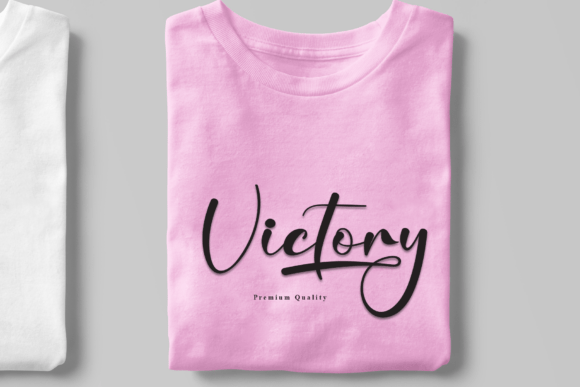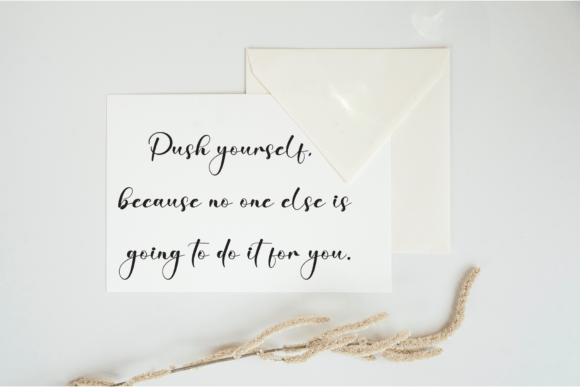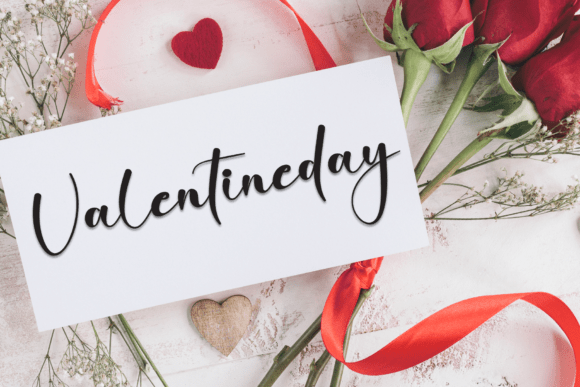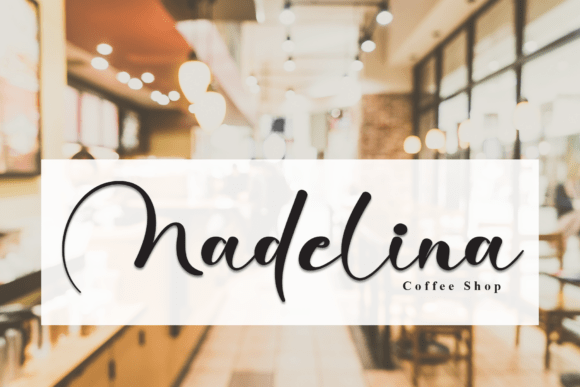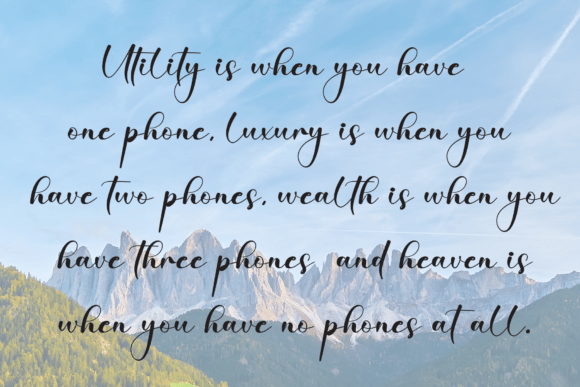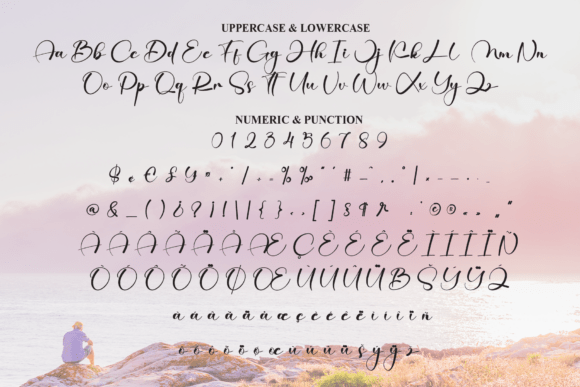
Find Your Inner Calm with the Perfect Font
Have you ever been stuck on a design project, struggling to find the perfect font that captures the essence of your brand or message? You’re not alone. We’ve all been there, pouring over font options, searching for that elusive combination of style and sophistication. It’s a feeling of frustration, until suddenly, it hits you – the perfect font. For designers seeking to add a touch of elegance and modern flair to their work, Calming Font is the answer.
This beautiful handwritten script font combines flowing strokes and organic curves to bring warmth and sophistication to any project. Whether you’re creating a brand identity, designing an invitation, or crafting a social media post, Calming Font adds a personal and refined touch with effortless charm. With its versatility and timeless appeal, Calming Font is a valuable asset for designers looking to elevate their work and connect with their audience on a deeper level.
Calming Font Key Features
- Unique Characteristic: The font features a unique blend of soft, rounded edges and subtle texture, creating a calming and soothing effect on the reader.
Designer Review: Calming Font
Overall, I think Calming Font is a great addition to any designer’s toolkit. It has a certain charm that sets it apart from other fonts.
- Beautifully designed letterforms with subtle curves
- Easy to read even in smaller font sizes
- Works well for both body text and headings
- Has a unique, yet timeless feel to it
- Not ideal for bold or dramatic statements
- Can be a bit too soft for digital interfaces
- Lacks a clear direction for color schemes
While it’s not perfect, I think Calming Font is a great choice for designers looking to add some warmth and personality to their projects. With its gentle curves and subtle charm, it’s sure to make a statement in the right context.
Tips for Getting the Most Out of Calming Font
Use Calming Font to create a soothing and calming atmosphere in your designs. Here are some tips:
- Pair Calming Font with calming colors to create a cohesive design.
- Use Calming Font for headings and subheadings to create a clear hierarchy.
Alternatives to Calming Font for Designers
Open Sans is a clean, modern sans-serif font that works well for body text and headings. It’s highly legible and versatile, making it suitable for various design projects. When to use: Use Open Sans for digital products, websites, and apps where a clean and modern aesthetic is desired. Compared to Calming Font: Open Sans is more energetic and modern, whereas Calming Font is softer and more calming.
Lato is a sans-serif font that offers a balance between modernity and legibility. It’s a great choice for body text and headings, and it’s highly customizable. When to use: Use Lato for designs that require a neutral and professional tone. Compared to Calming Font: Lato is more neutral and versatile, whereas Calming Font is more emotive and calming.
Merriweather is a classic serif font that works well for body text and headings. It’s highly legible and has a warm, traditional feel to it. When to use: Use Merriweather for designs that require a classic and timeless aesthetic. Compared to Calming Font: Merriweather is more traditional and classic, whereas Calming Font is more modern and calming.